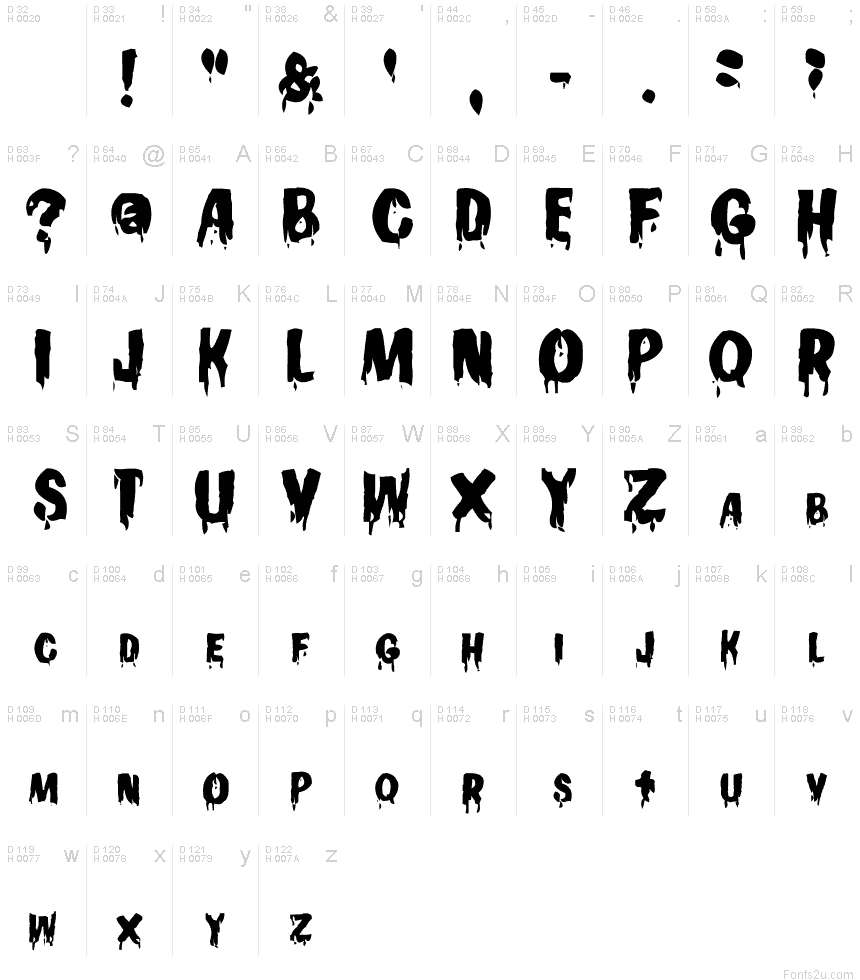
Gooey
Gooey font is a free scary display typeface that looks like it’s oozing right off the screen. Each letter swells into chunky black shapes and then melts downward in long drips, like wet paint on a haunted wall. The forms feel heavy, sticky, and just a little unhinged, so a single word set large instantly turns any layout into a spooky scene.
Using Gooey, you can amp up Halloween posters, haunted house flyers, horror game titles, creepy YouTube thumbnails, party invitations, and eerie merch graphics. This free font thrives at big sizes where the thick blobs and dangling drops can really show. Pair Gooey with a clean, narrow sans serif for body copy to keep the slime-soaked drama readable and sharp.